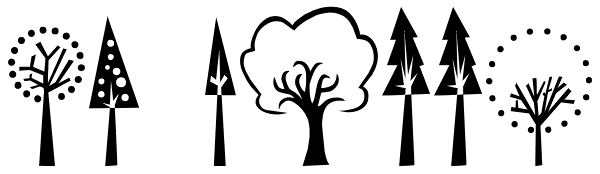
DB Trees
DB Trees includes several familiar and not so familiar tree designs with plenty of room for creativity to grow. Makes fun additions to your creative projects.
DB Trees Font